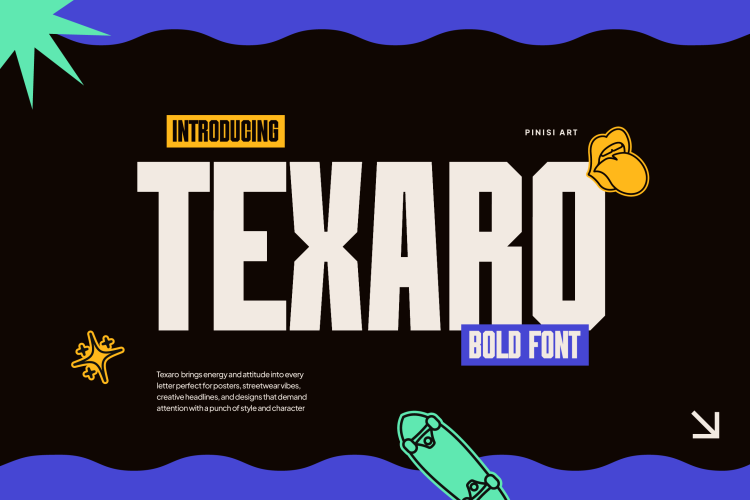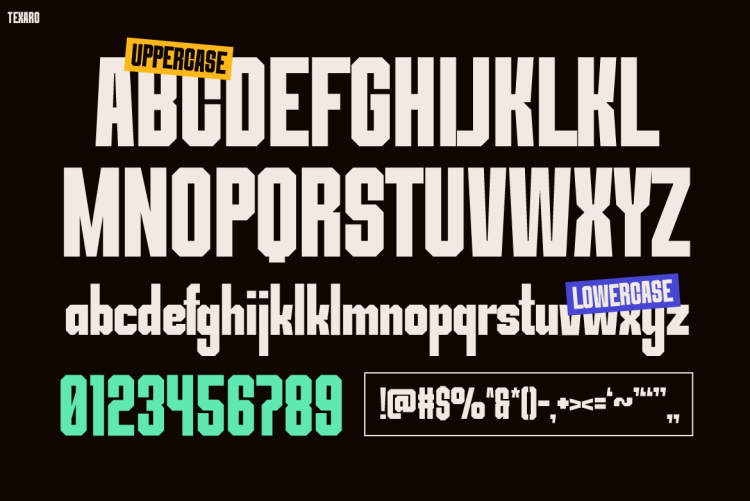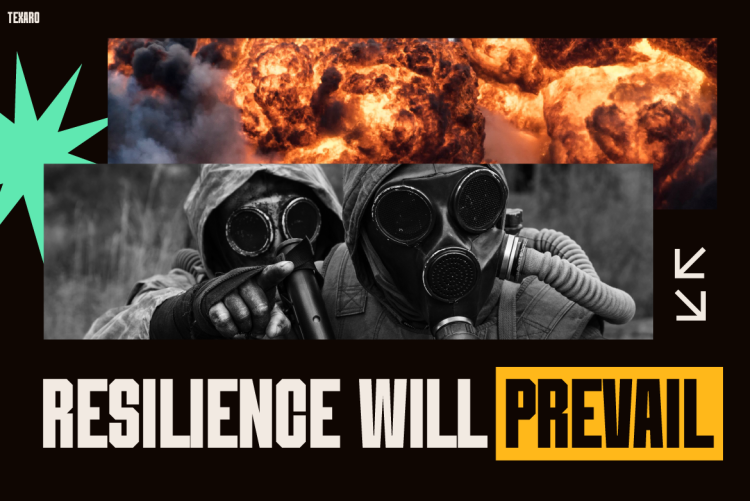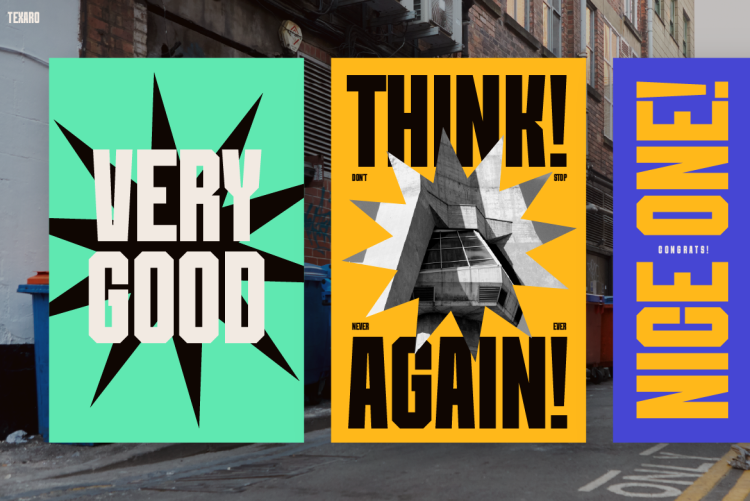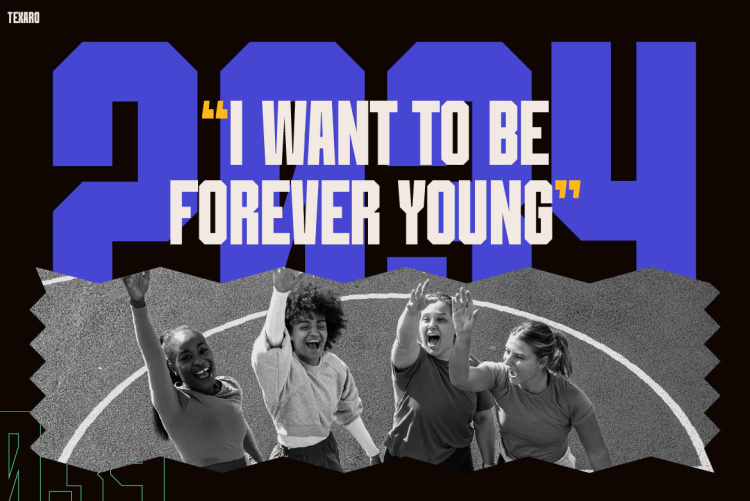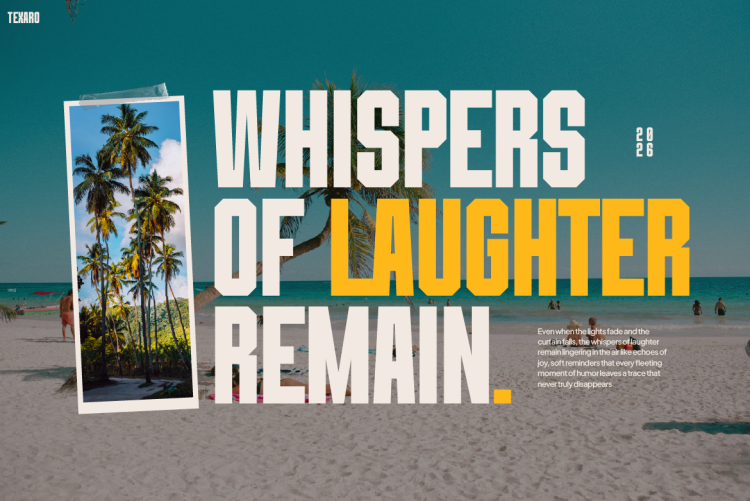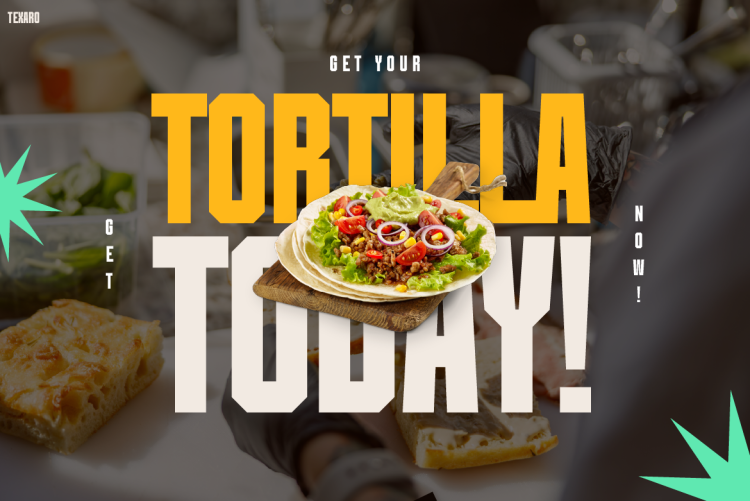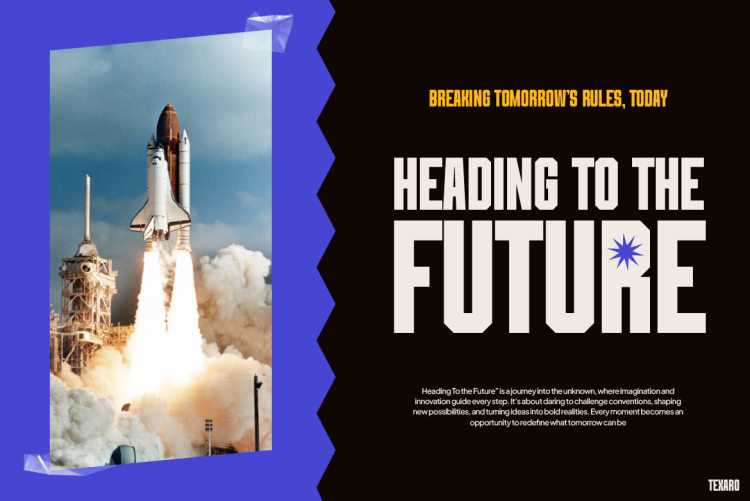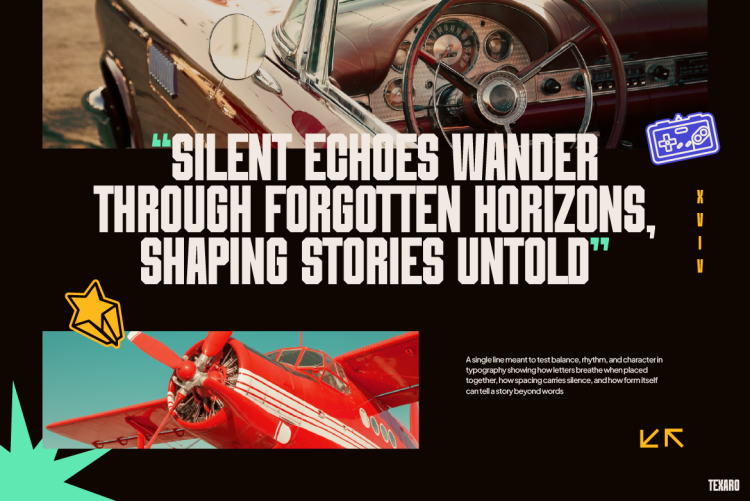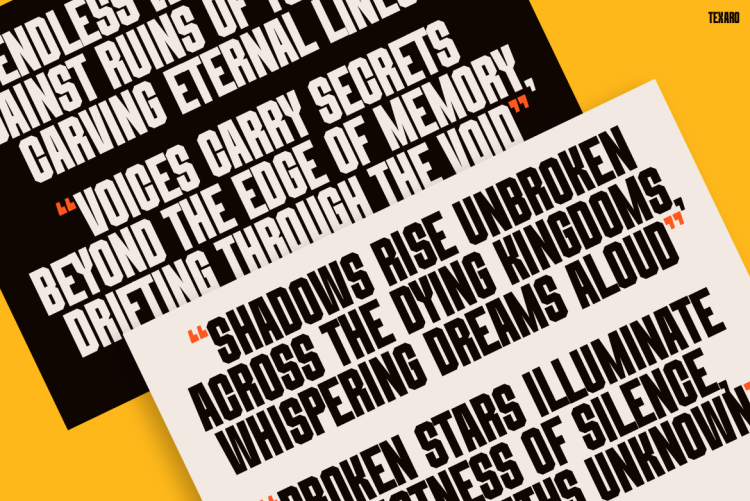
Instagram Font TEXARO โ Bold, Modern & Eye-Catching
Instagram Font TEXARO is a bold, modern typeface designed to instantly grab attention and create a strong visual impact. Unlike ordinary fonts, TEXARO combines sharp edges with confident letterforms, making every word stand out with authority. Moreover, its versatile design ensures that your text remains clear and engaging in both small captions and large-scale headlines. With uppercase, lowercase, numbers, and full punctuation included, this font is not only stylish but also highly functional. Therefore, it becomes the perfect balance between aesthetics and usability.
Who Itโs Perfect For
This Instagram Font TEXARO is perfect for anyone who wants their words to shine:
Content Creators & Influencers who want to boost their Instagram feeds, reels, and stories with bold, scroll-stopping typography.
Graphic Designers who need a cinematic and adaptable font for posters, flyers, album covers, and branding projects.
Business Owners & Marketers who aim to create ads that stand out, attract attention, and convert viewers into customers.
Event Planners & Artists who require modern yet powerful typography to enhance invitations, campaigns, and merchandise.
In addition, TEXAROโs strong style works across multiple industries, from fashion and music to gaming, food, sports, and lifestyle branding. As a result, you can easily transform your message into a design that feels professional, creative, and unforgettable. Furthermore, the bold aesthetic ensures your audience not only notices your content but also remembers it long after.